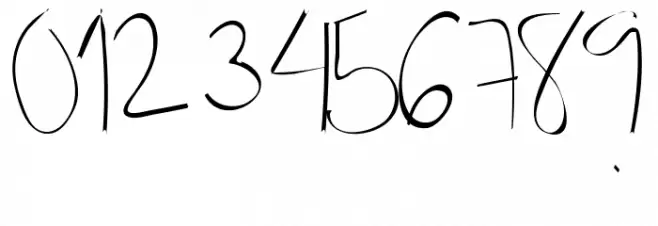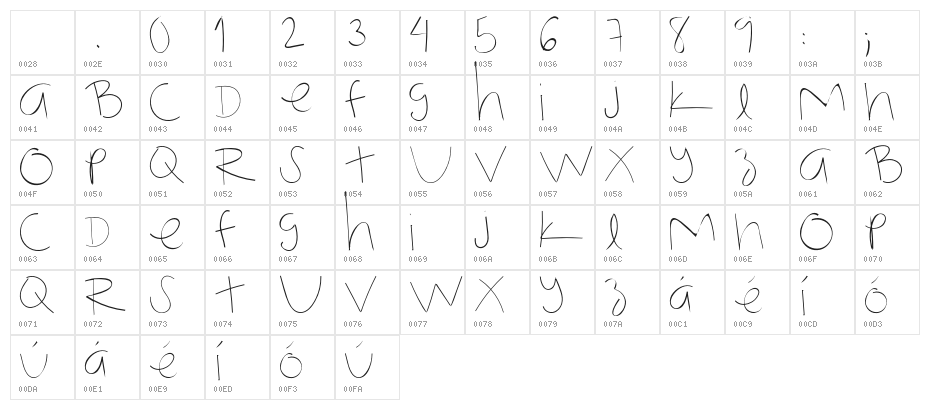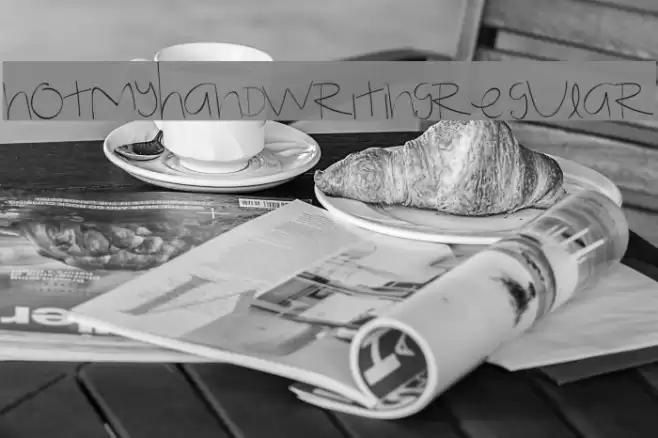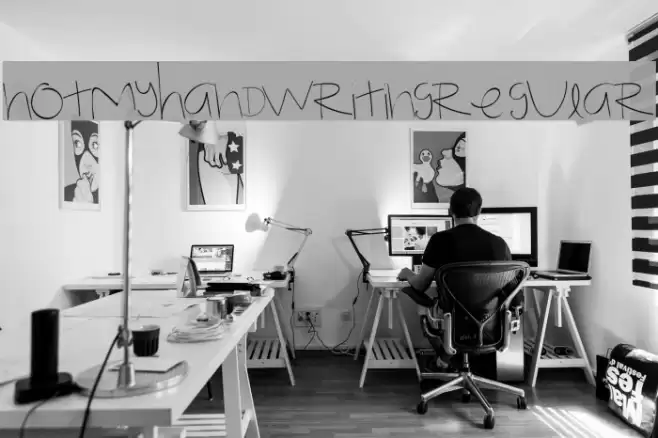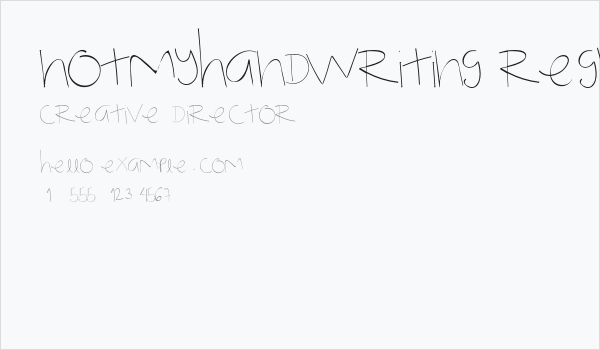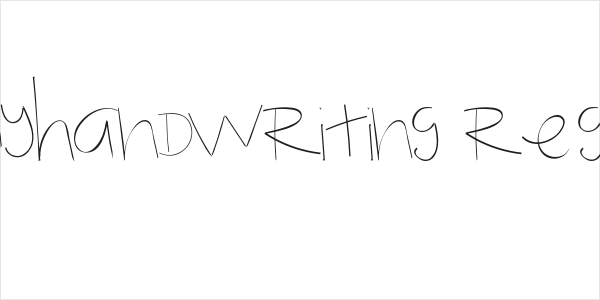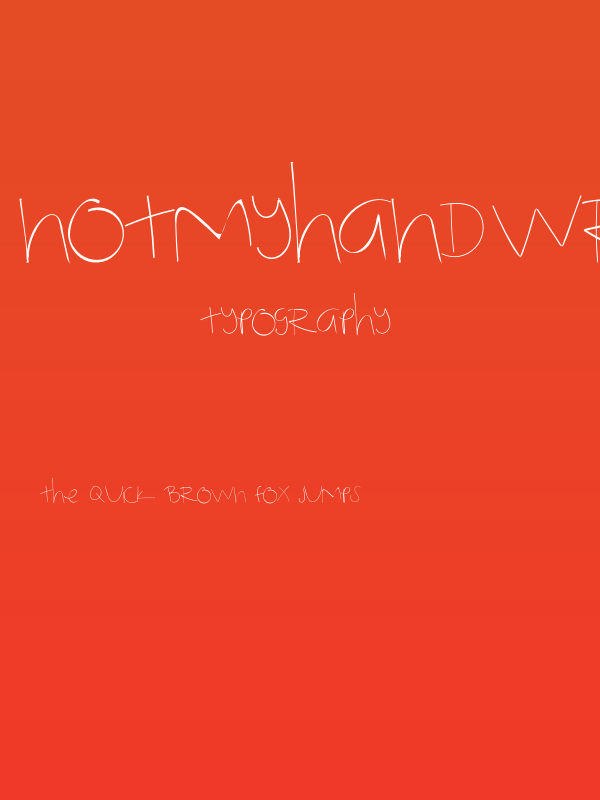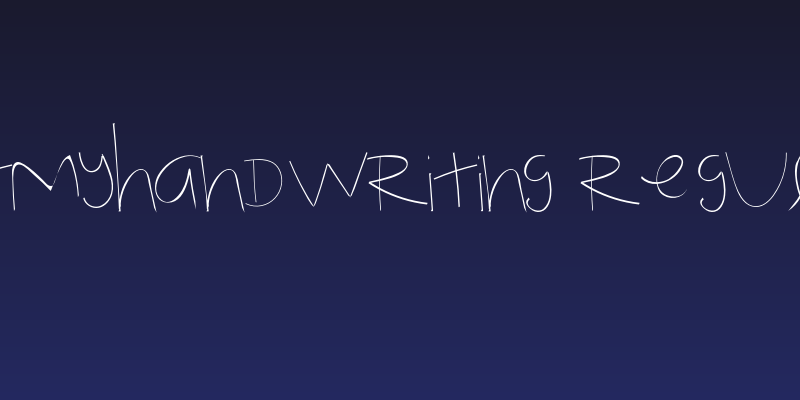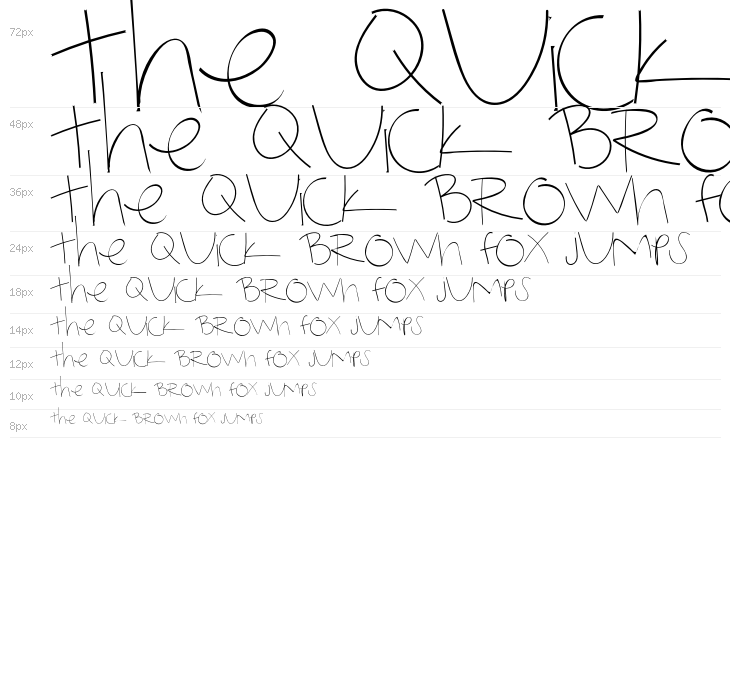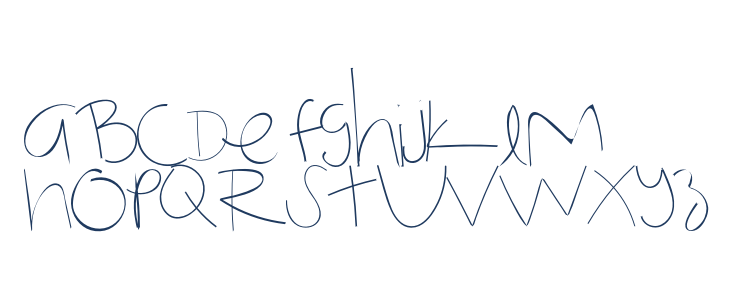
NotMyHandwriting-Regular Font
This font exudes a playful and casual handwritten style, characterized by its irregular and whimsical letterforms. The strokes are thin and uneven, giving it an authentic, personal touch reminiscent of a quick, informal note. The characters vary in size and alignment, adding to its charm and uniqueness. The overall appearance is light and airy, with a sense of spontaneity and creativity. This font captures the essence of handwritten text, making it ideal for projects that require a personal and approachable feel.
| Use Case | Logos, Informal text, Creative projects |
| Proposed Projects | Ideal for greeting cards, personal notes, informal invitations, and creative projects that require a personal touch. |